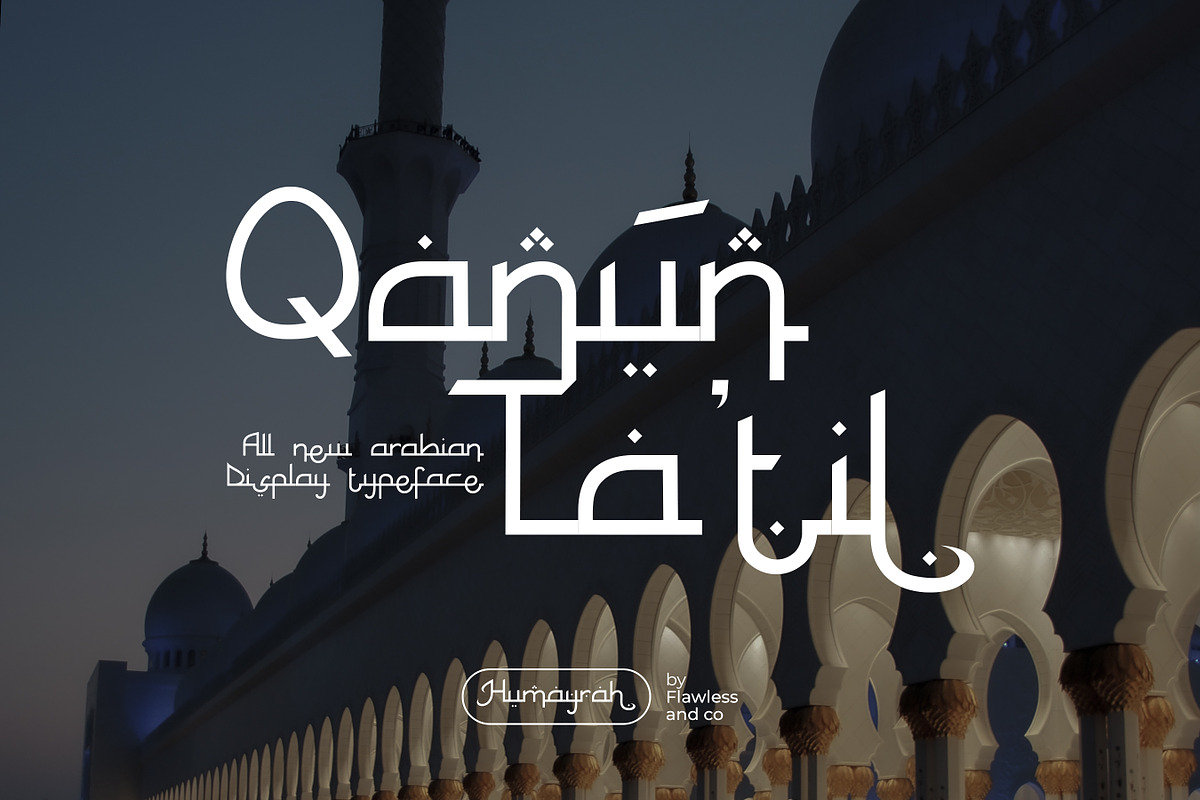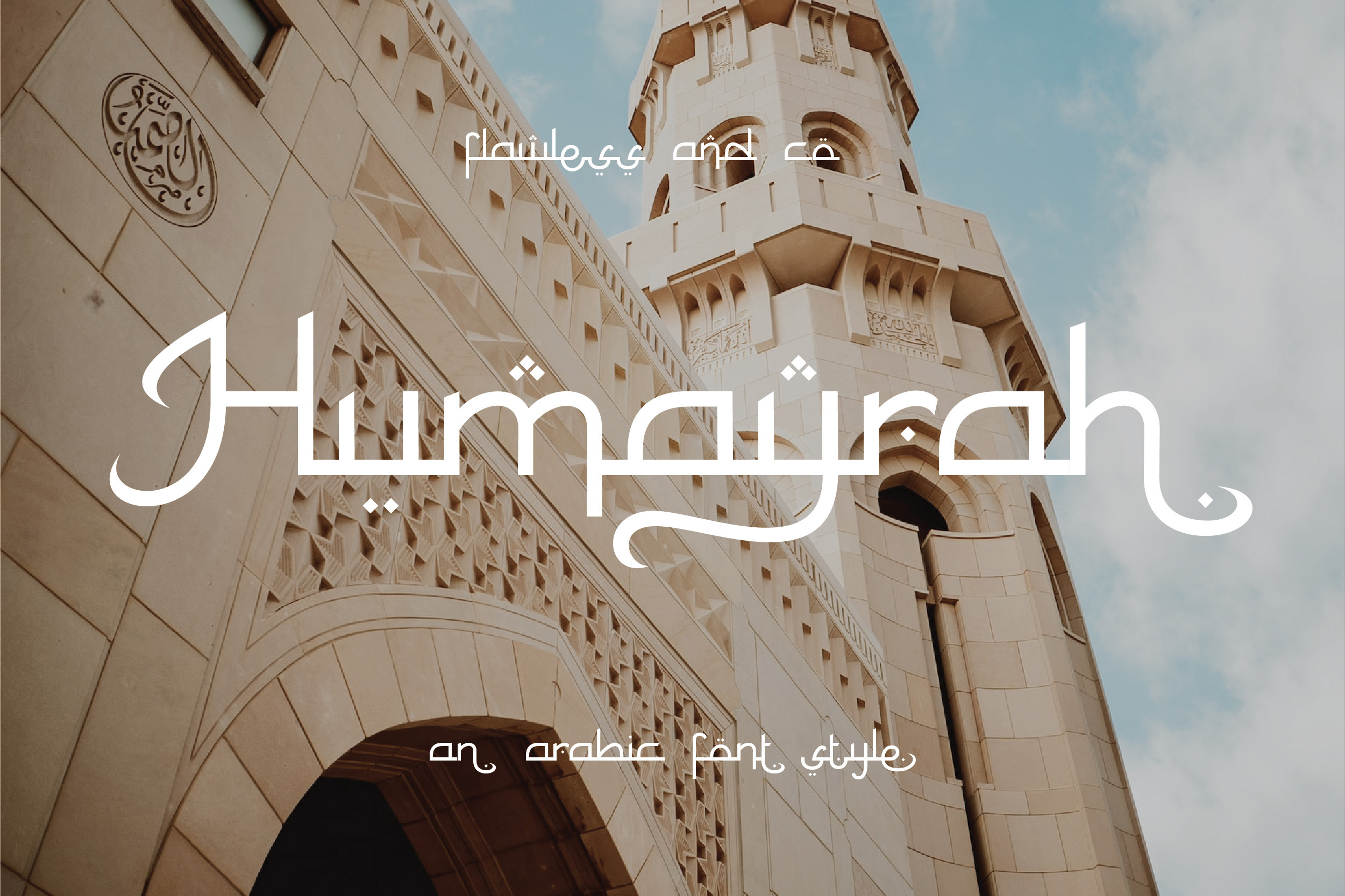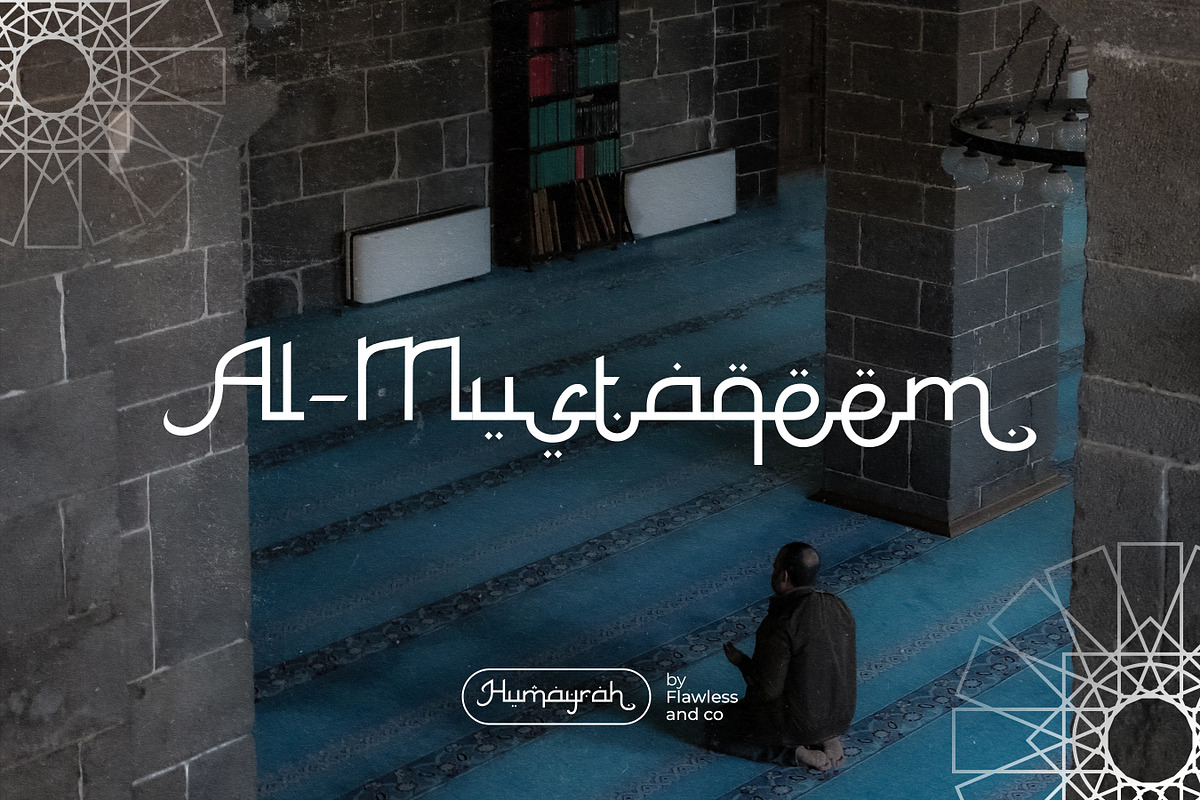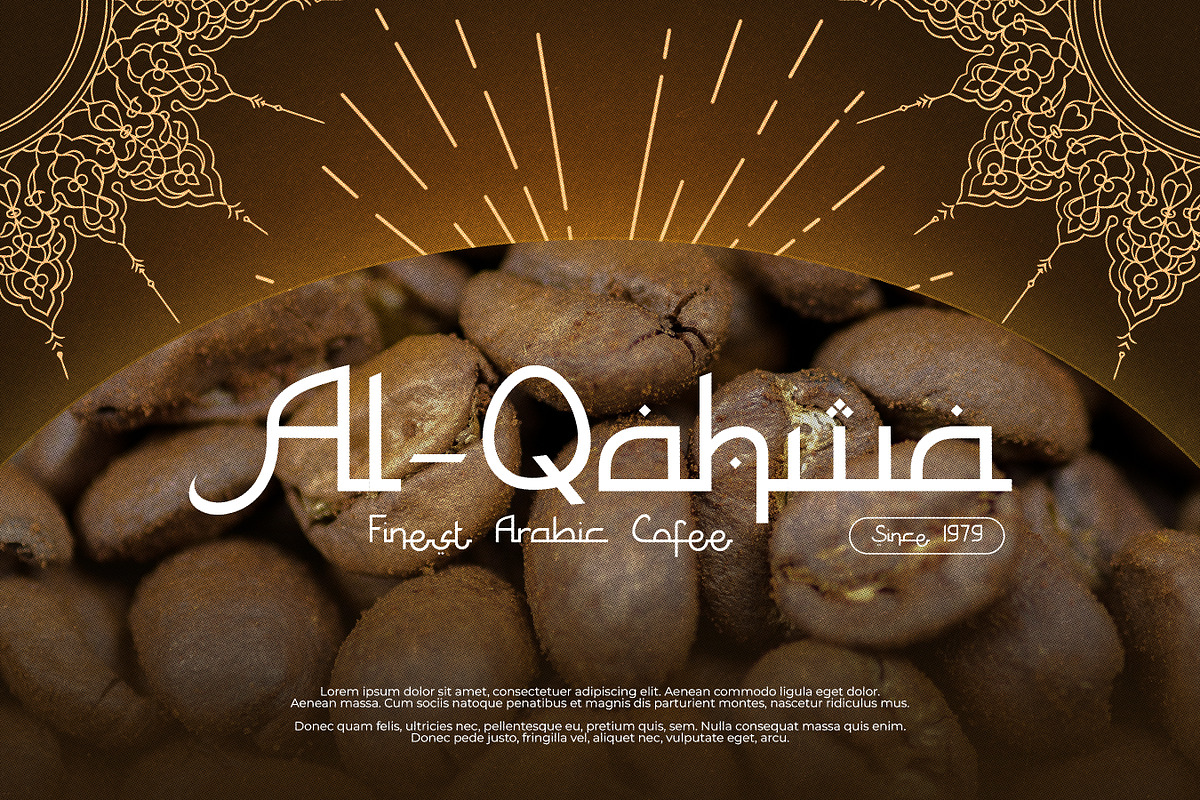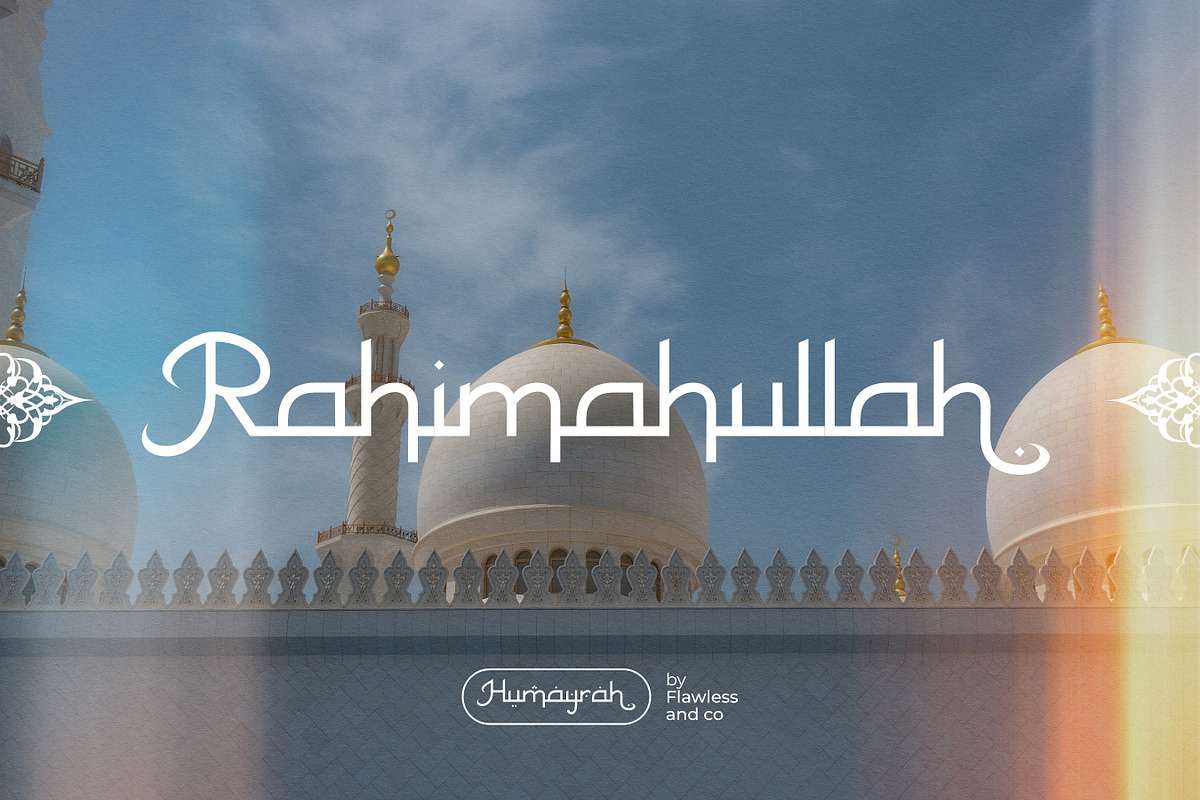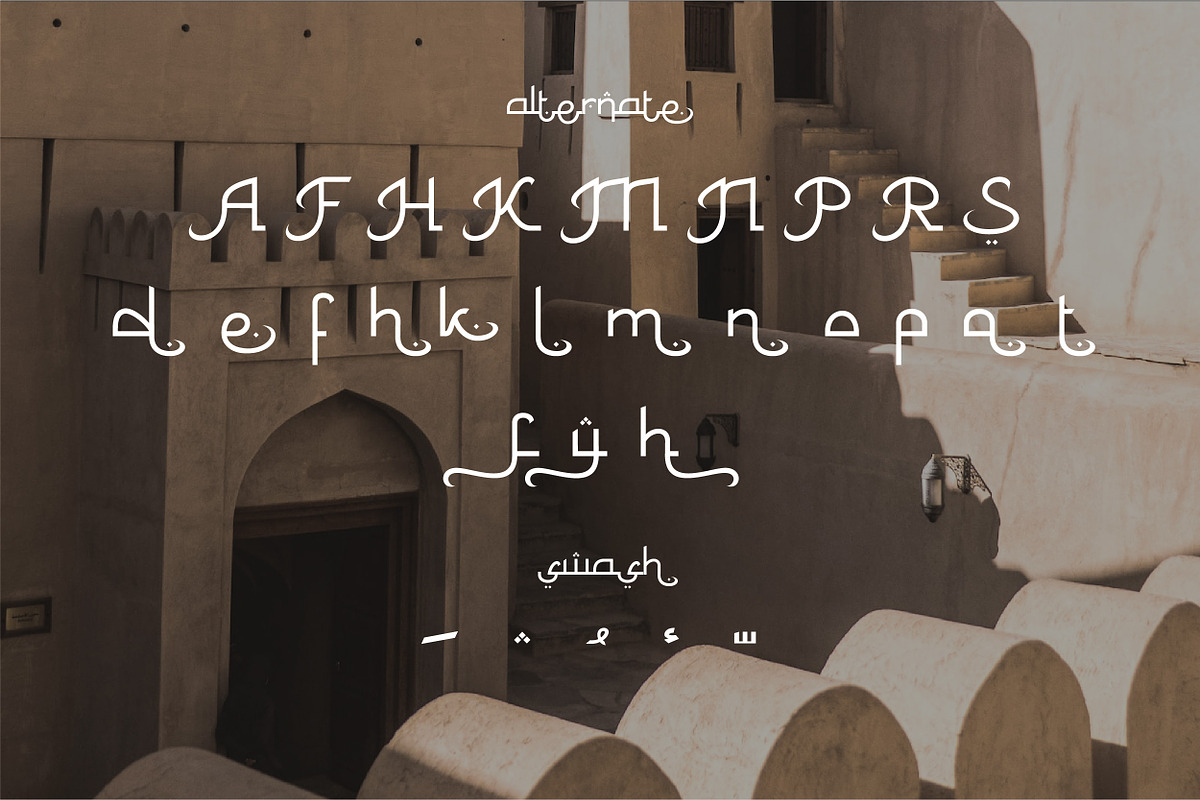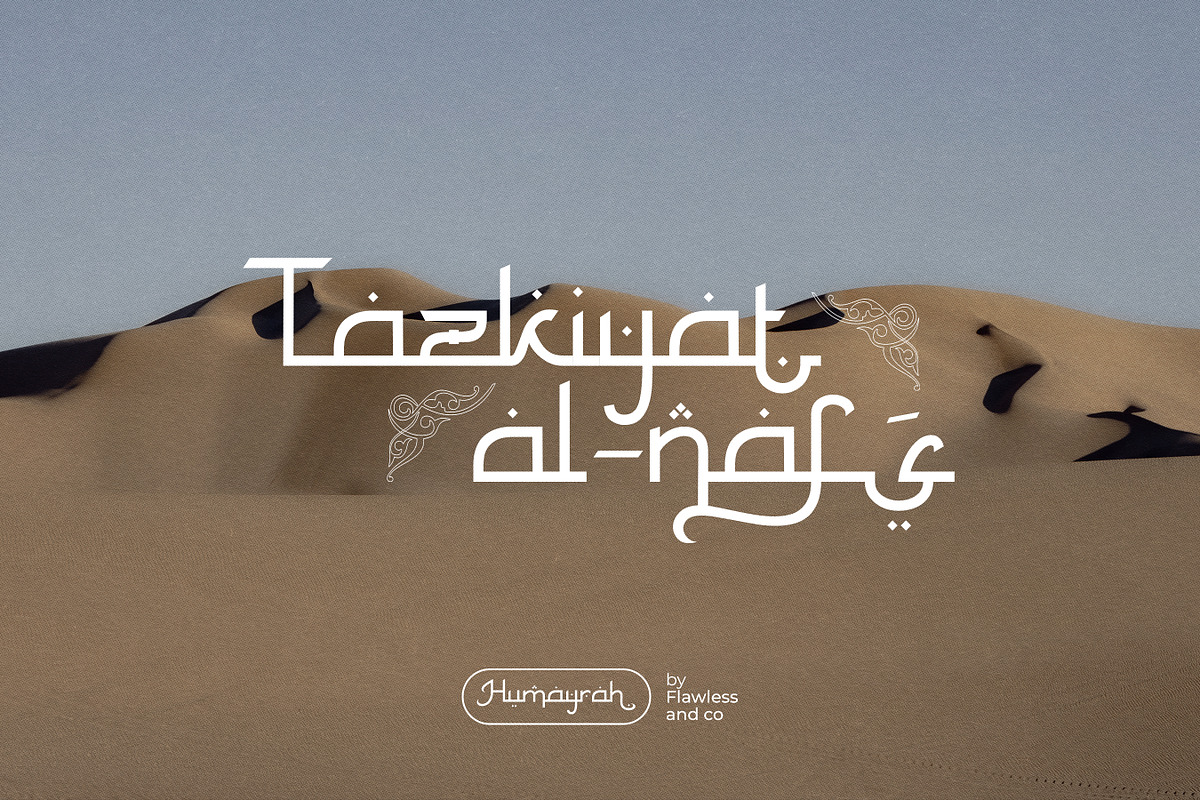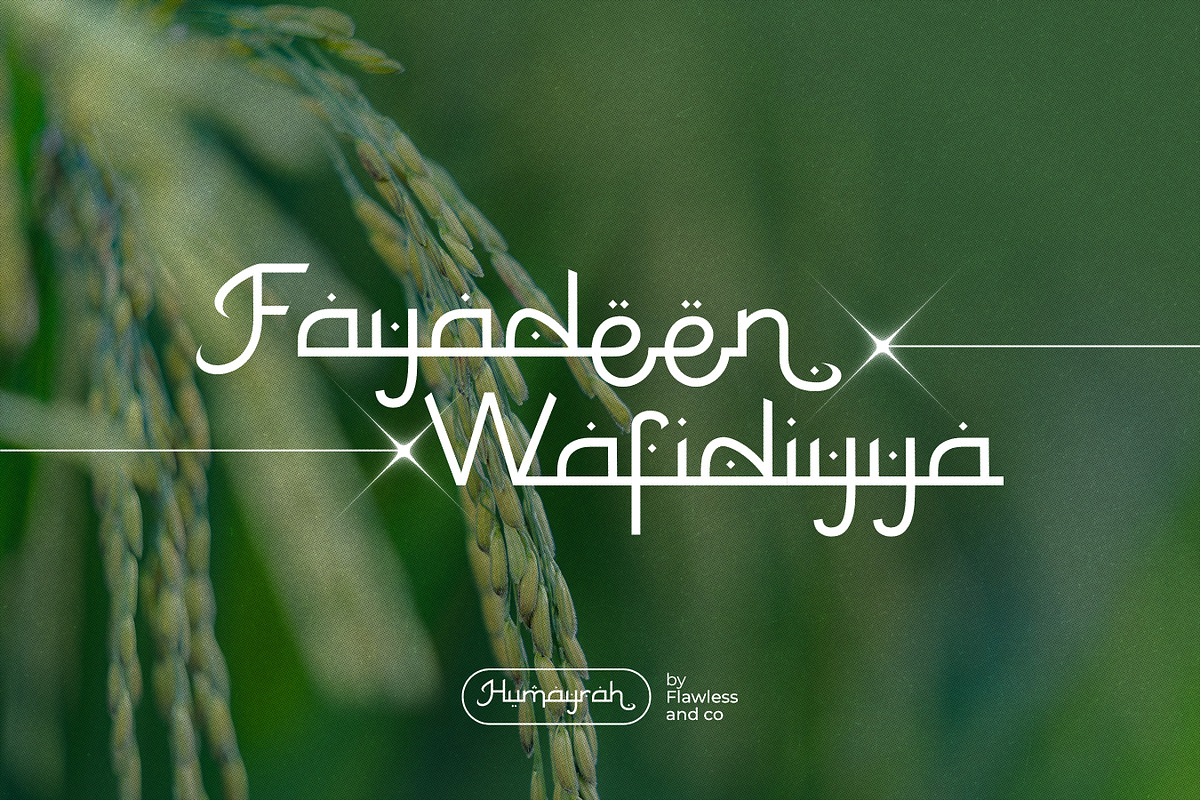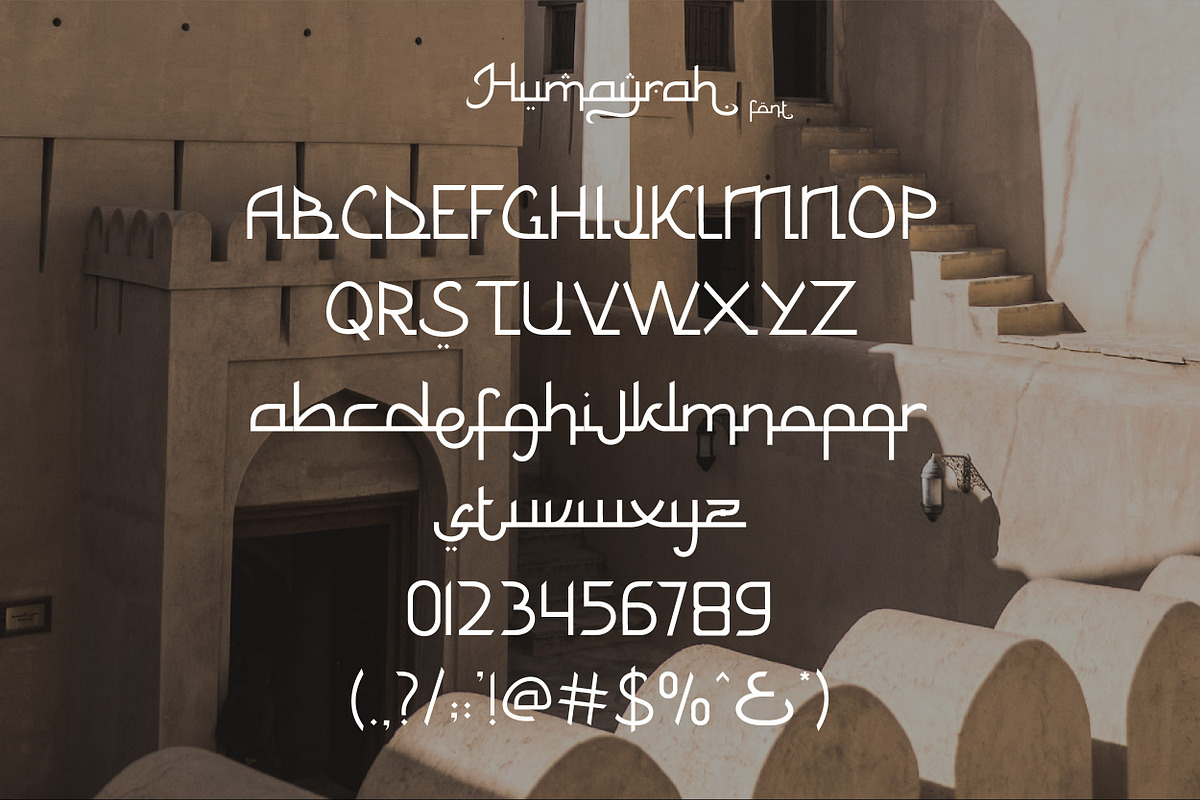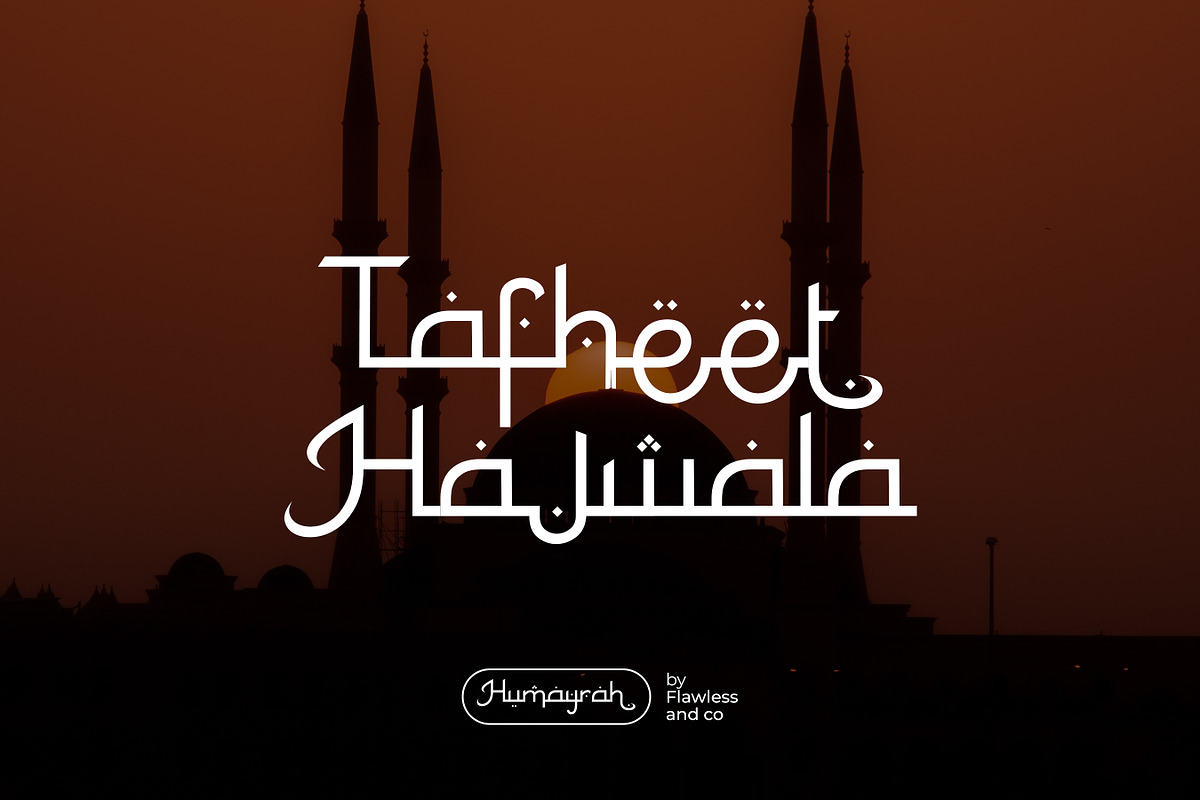
Humayrah - Ramadhan Arabic Font
Humayrah is an Arabic Font, Modern Font with Elegant Style is perfect for branding, logos, invitation, master heads, and more.
Multilingual Uppercase alphabet A-Z Lowercase alphabet a-z Italic alphaber 1-z Alternate Character Numbers 0-9 Some punctuation